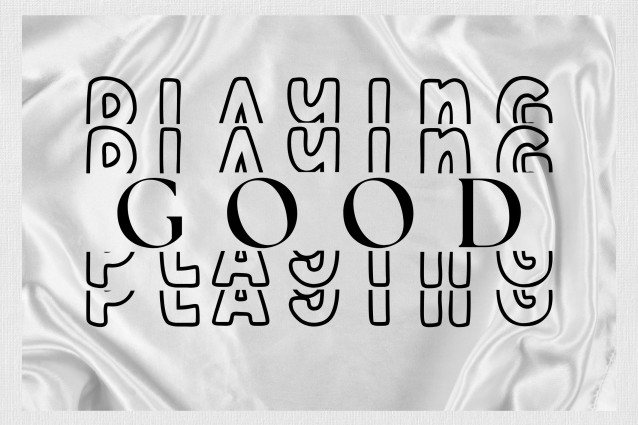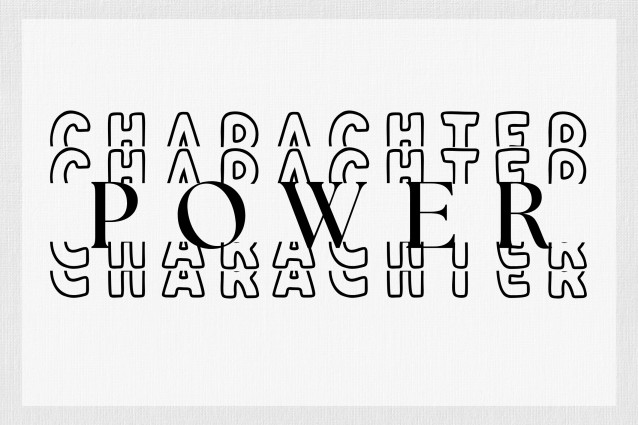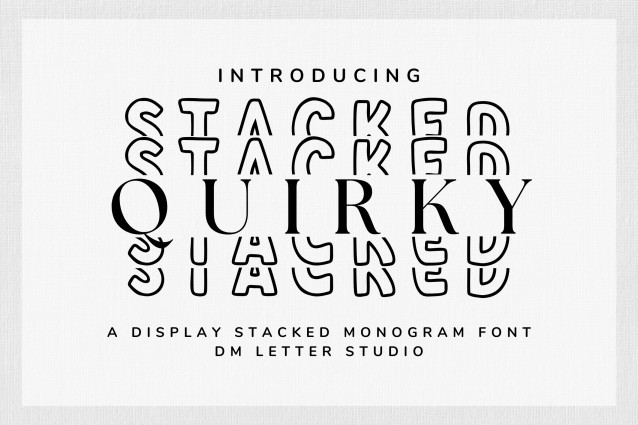
Quirky Stacked Monogram Font
Quirky Stacked Monogram – Playful & Modern Monogram Font, is a fun and modern monogram font with a stacked lettering style. Its bold and whimsical character makes it perfect for playful branding, stationery, apparel design, kid-themed products, and personalized monograms. The unique stacked layout adds a fresh and eye-catching twist to any design.